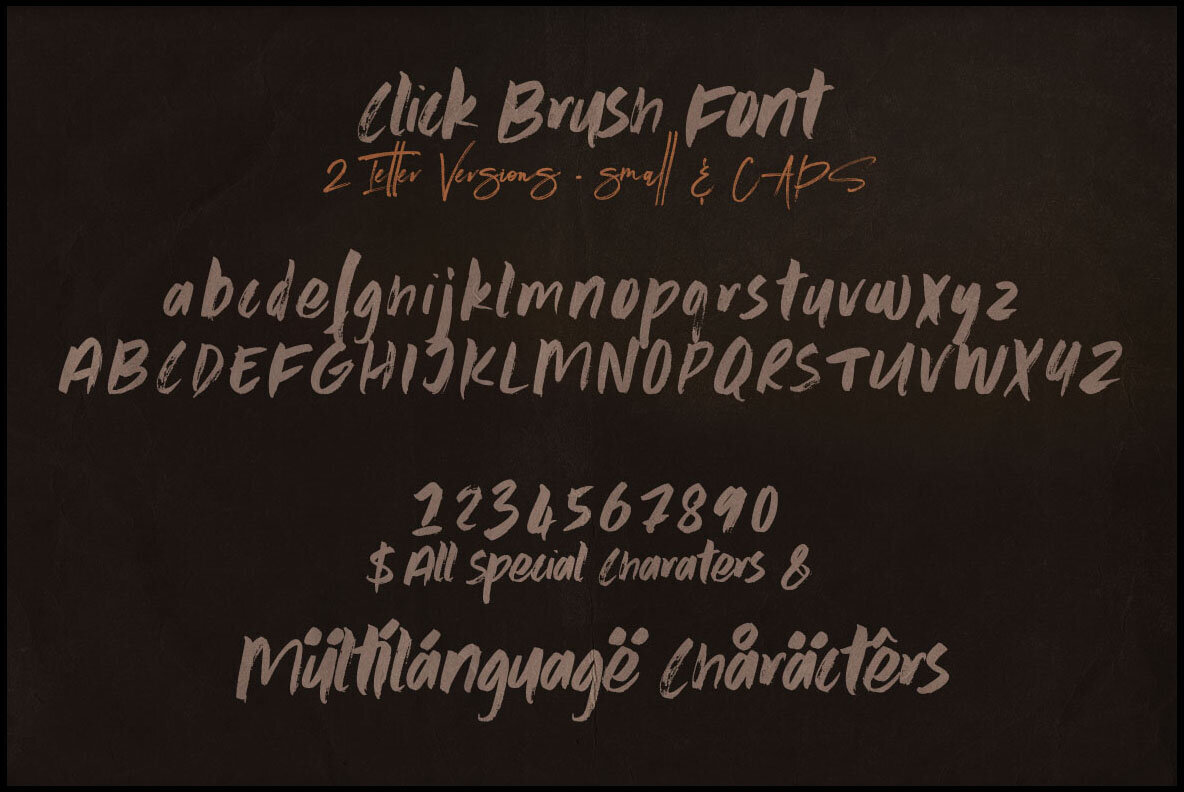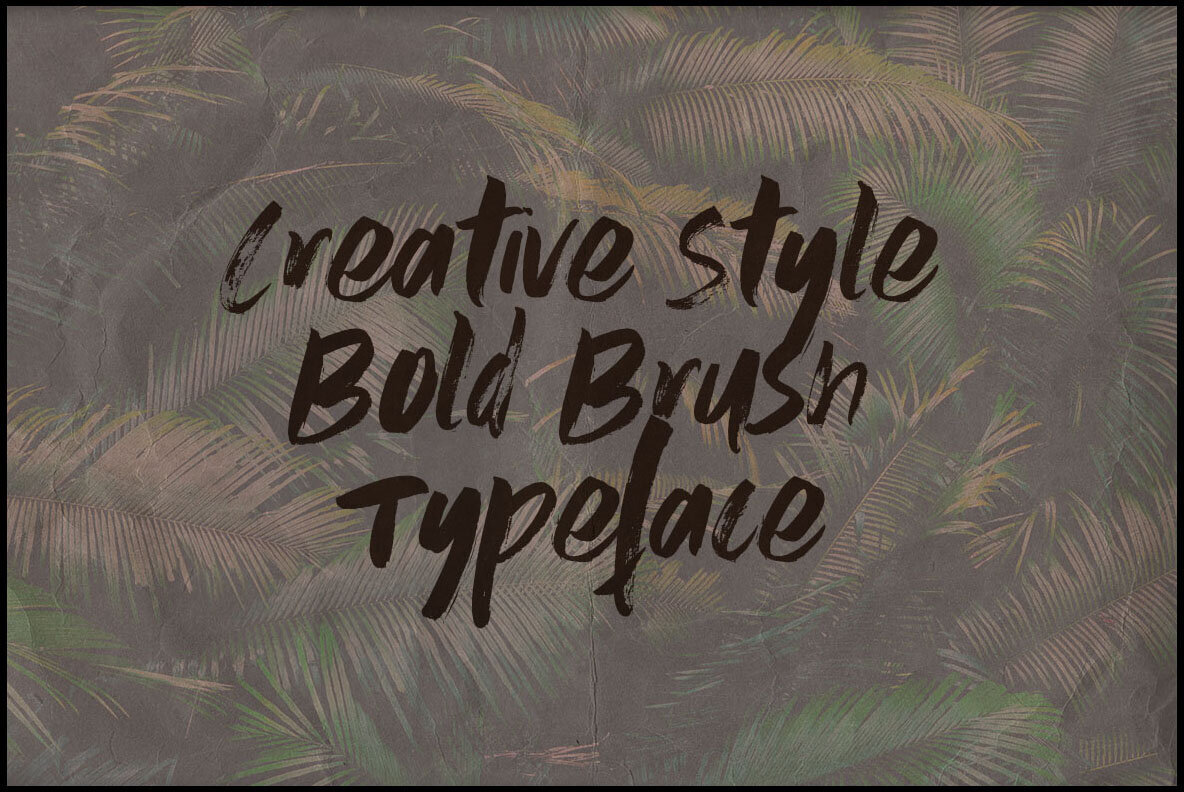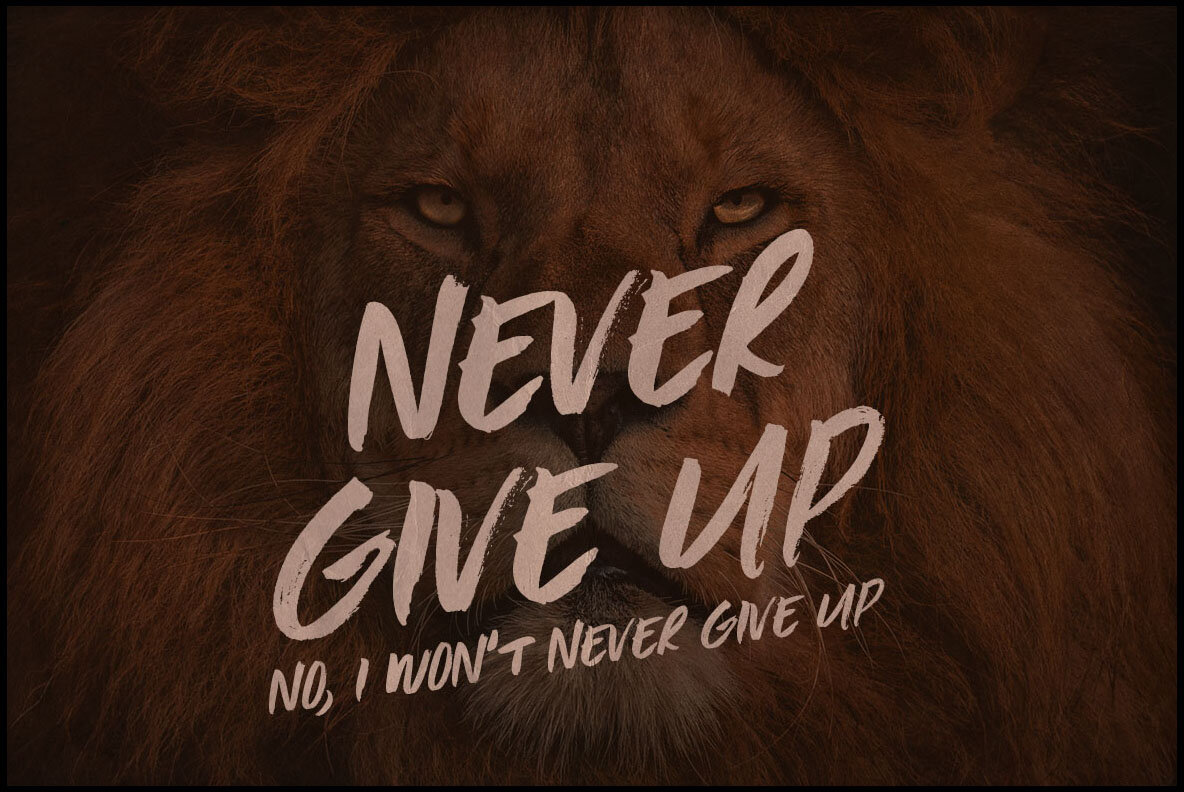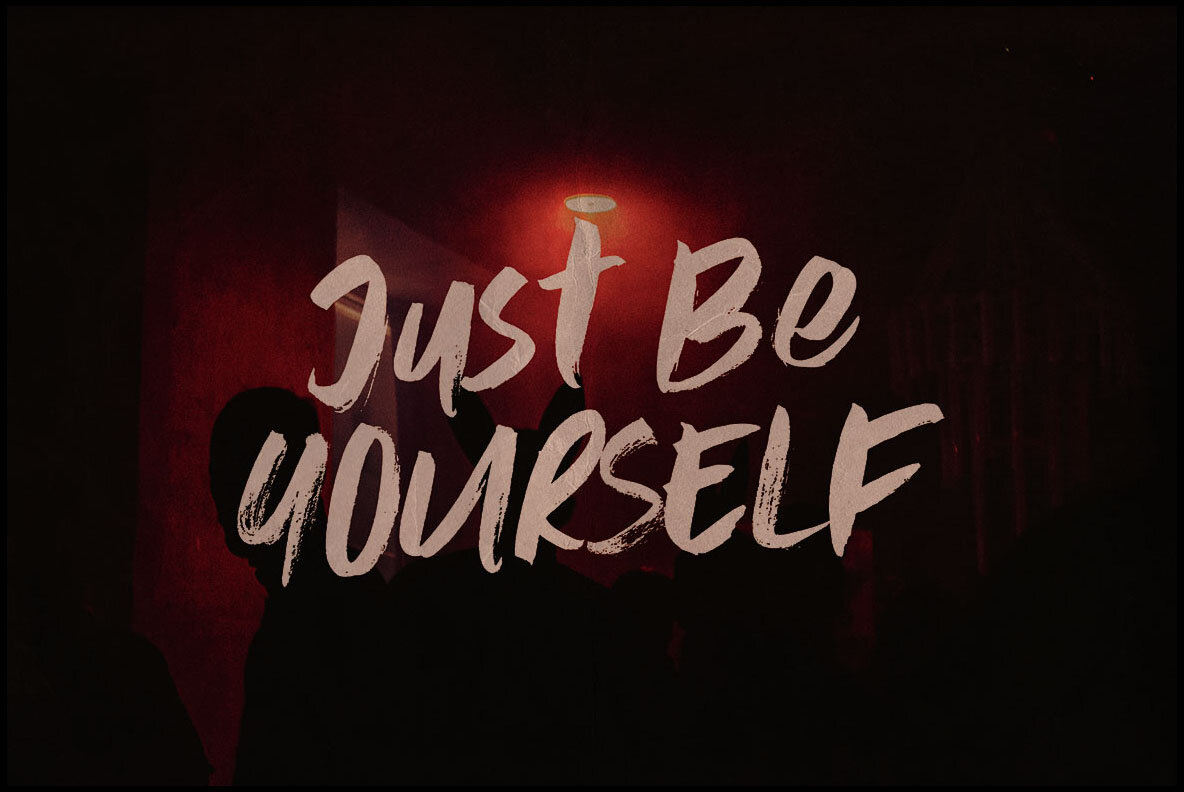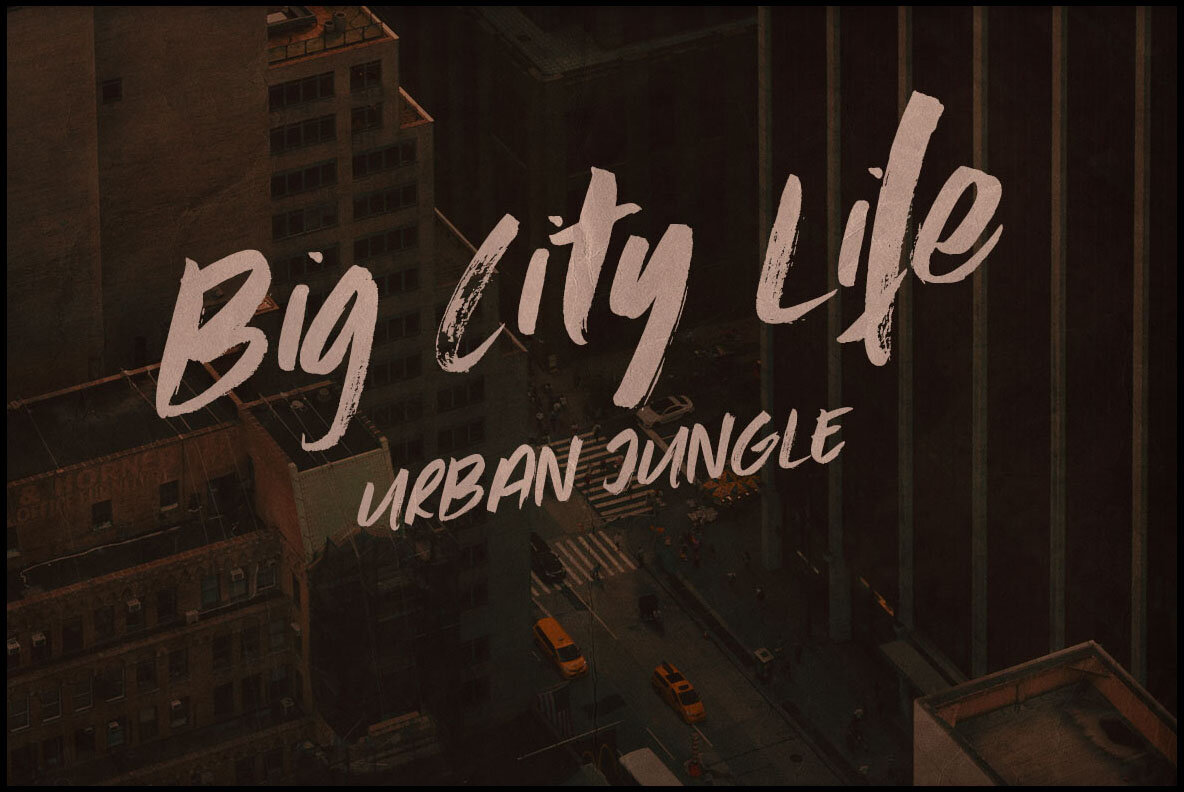
Click Bold Brush Font
Click Bold Brush by Peter Olexa is a bold and edgy sans display font, perfect for infusing a grunge or urban flair into your projects. Its freestyle and artistic look make it an excellent choice for creative works that require a touch of raw energy. If you need assistance with this font, please feel free to contact via the profile page for support.Click Bold Brush: Grunge Style Sans Display Font